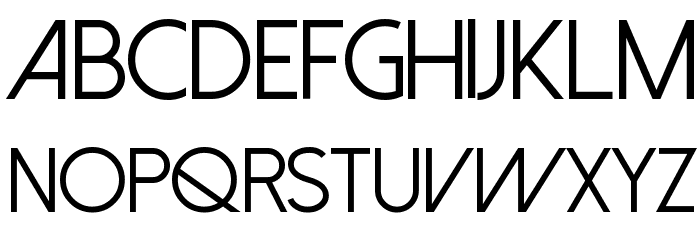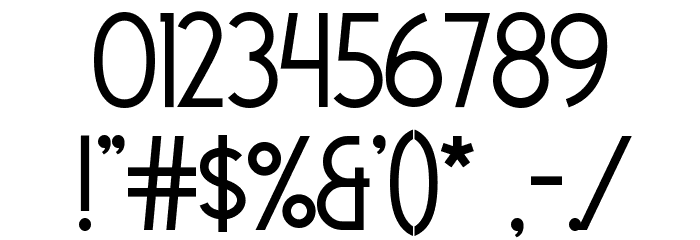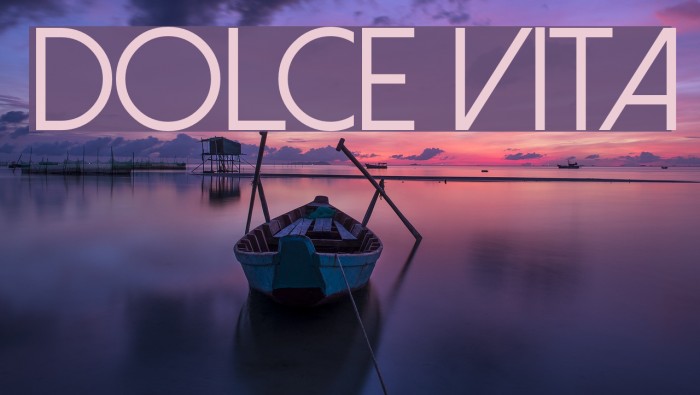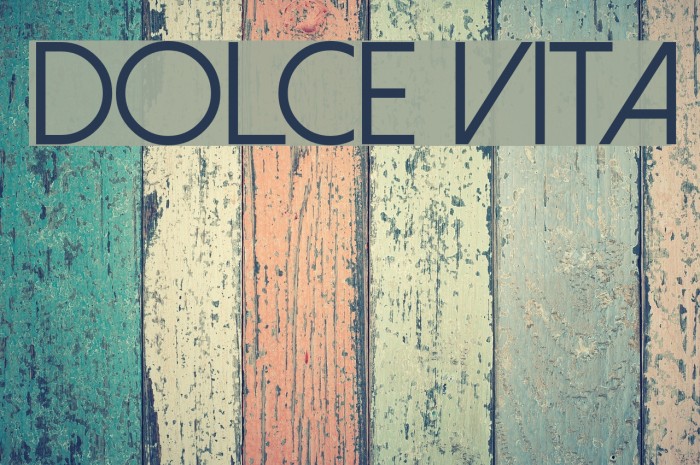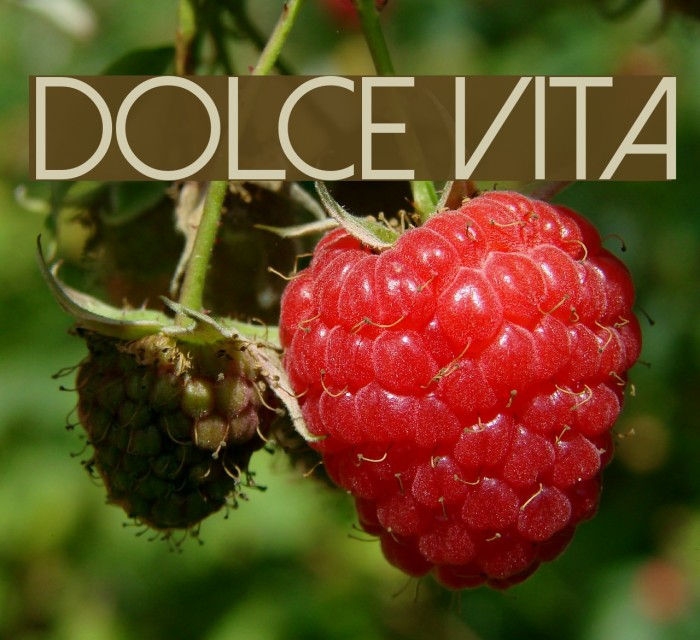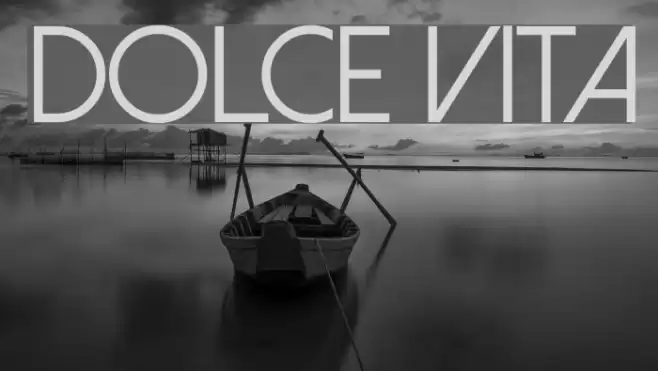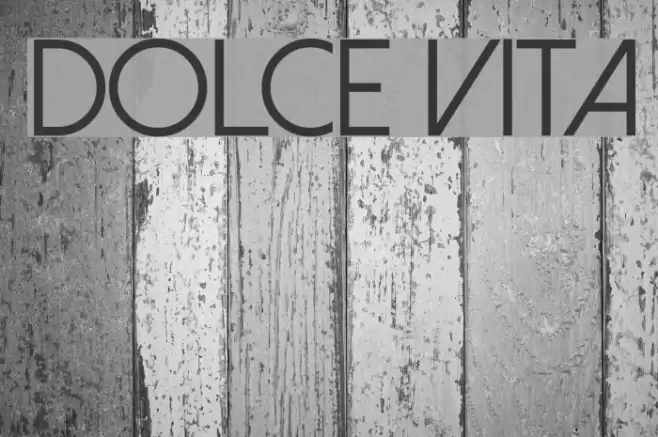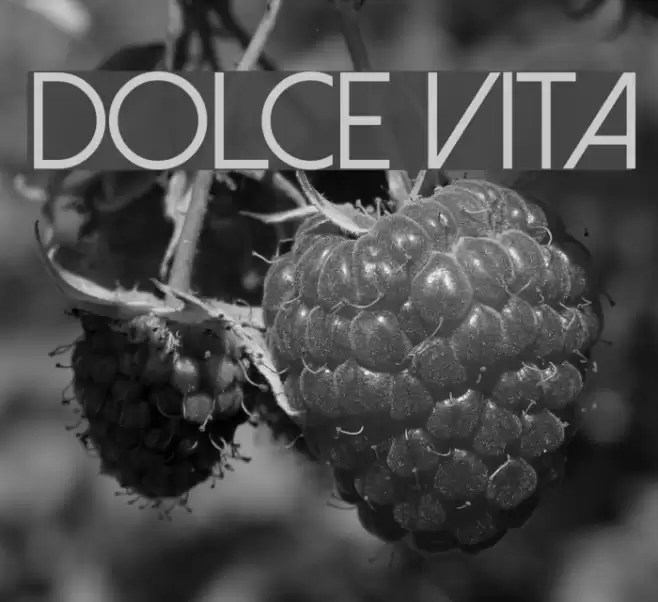
Dolce Vita Font
This font features a sleek and modern sans-serif design with clean, geometric lines. The characters are uniform in width, creating a harmonious and balanced appearance. The uppercase letters are bold and commanding, while the lowercase letters maintain a consistent style that complements the overall aesthetic. The numerals are clear and legible, making them suitable for various applications. Special characters are included, adding versatility to the font's use. The overall style is contemporary, making it ideal for modern design projects.
A sleek, modern sans-serif font with geometric lines and balanced characters.
- Proposed Projects: Ideal for branding, advertising, digital media, and editorial design.